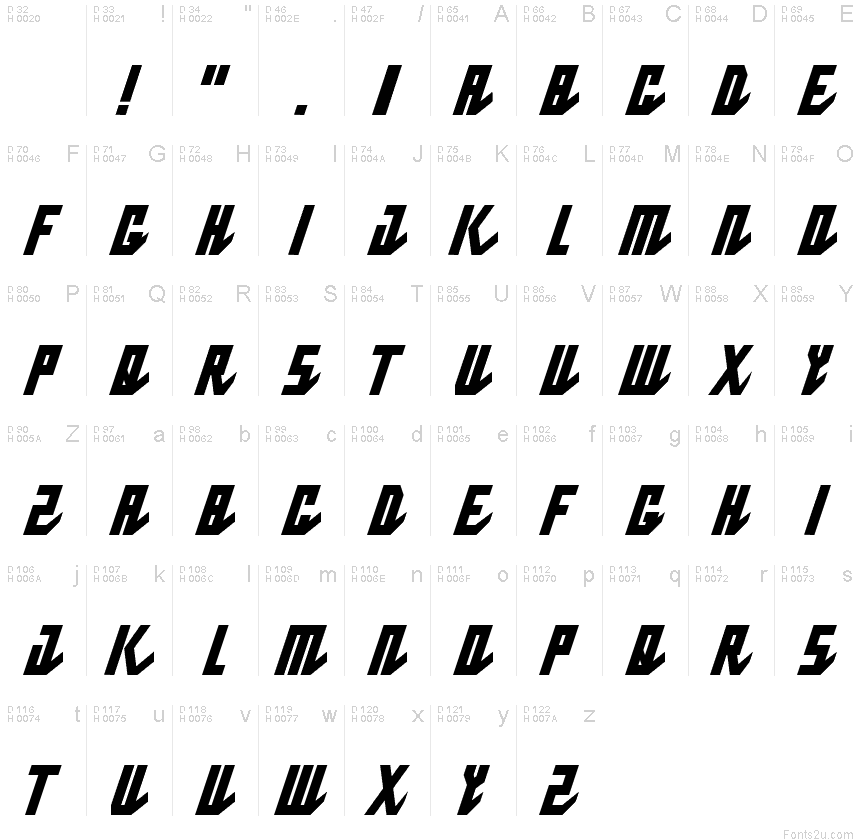
Pablo Narrow Italic by Jyak Fisher is a free futuristic display font with a forceful, forward-leaning silhouette. Its tightly packed letters combine broad strokes with deep diagonal cuts and sharp, blade-like joins. The result feels fast and mechanical.
Designers working in motorsport, gaming, or electronic music will find its speed-driven forms useful for posters, team branding, and album artwork. It is most convincing in a racing logo, where the compressed width, severe slant, and sliced letter shapes can echo vehicle graphics and aerodynamic bodywork with the blunt urgency of professional trackside signage.